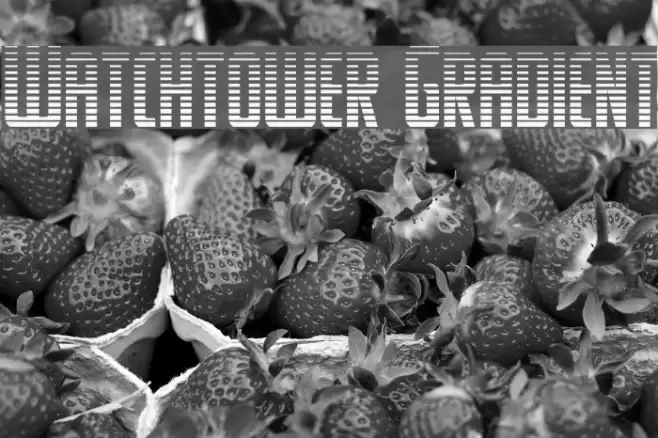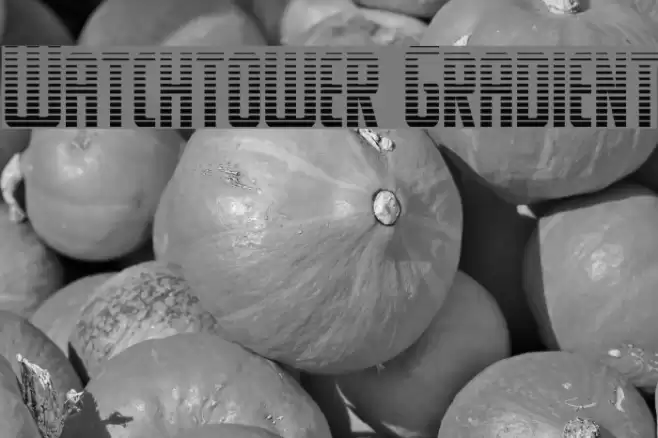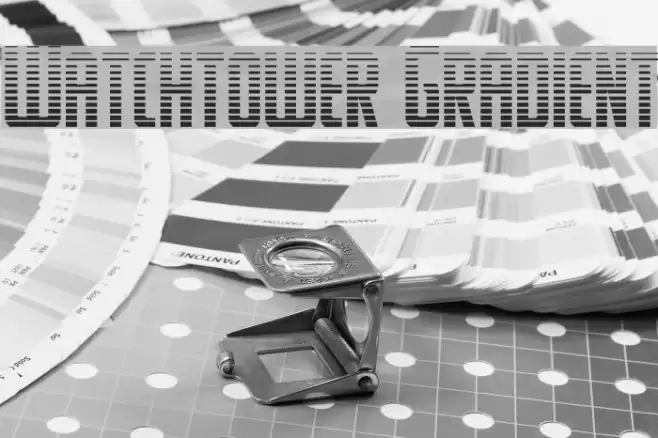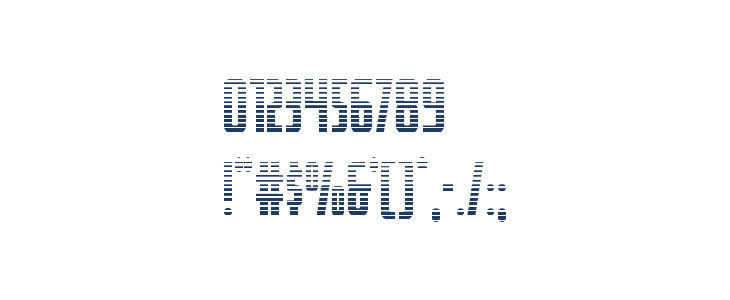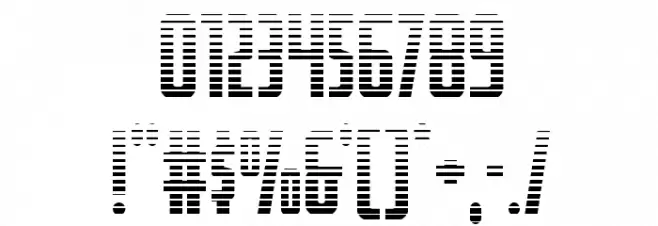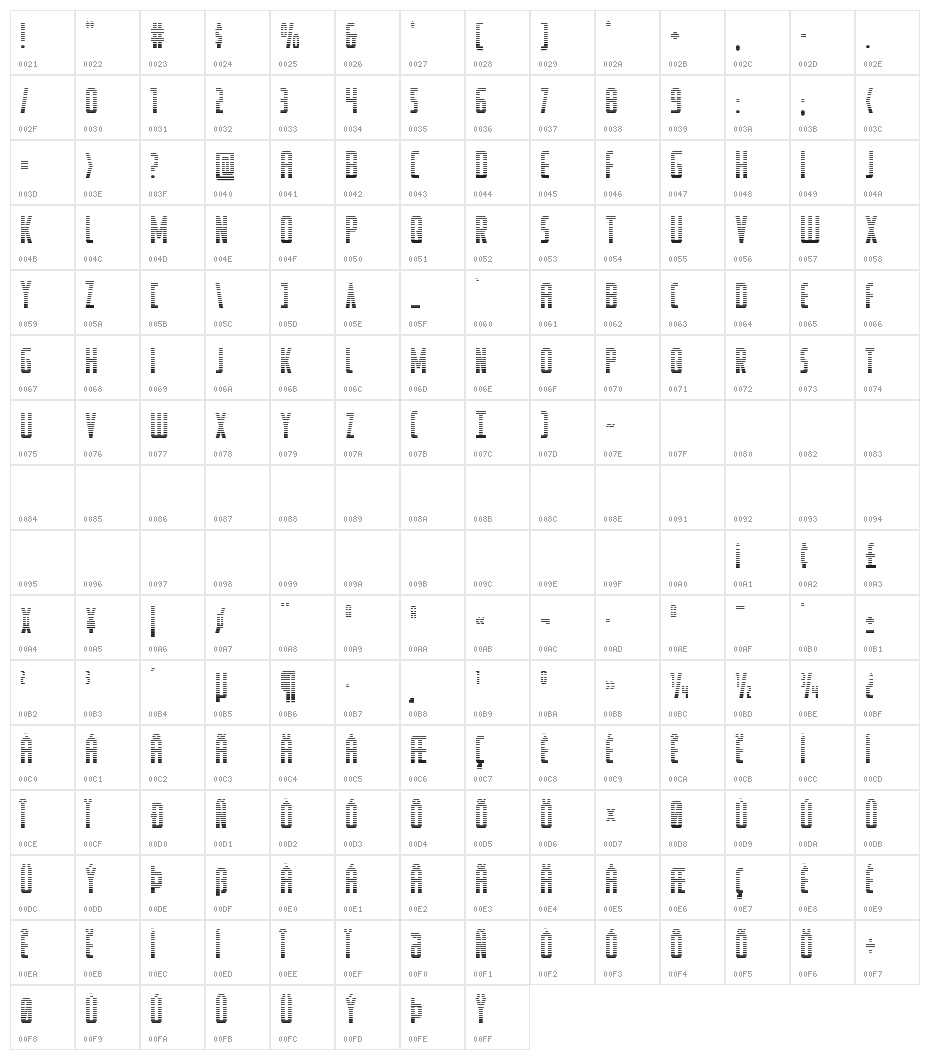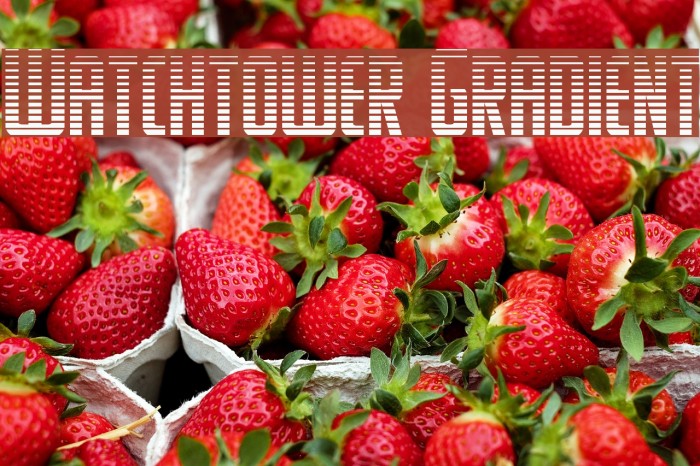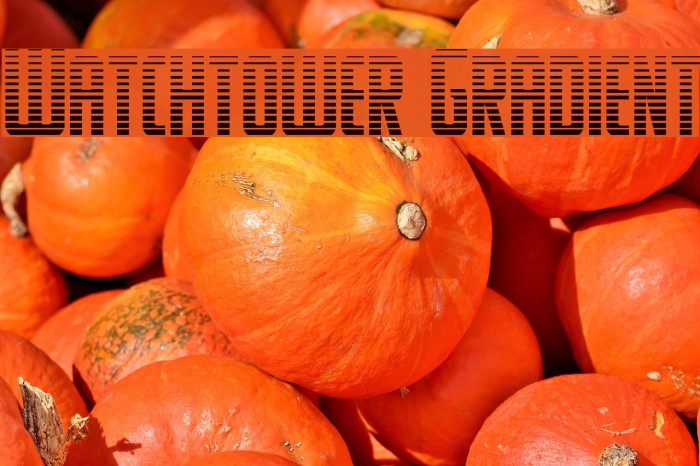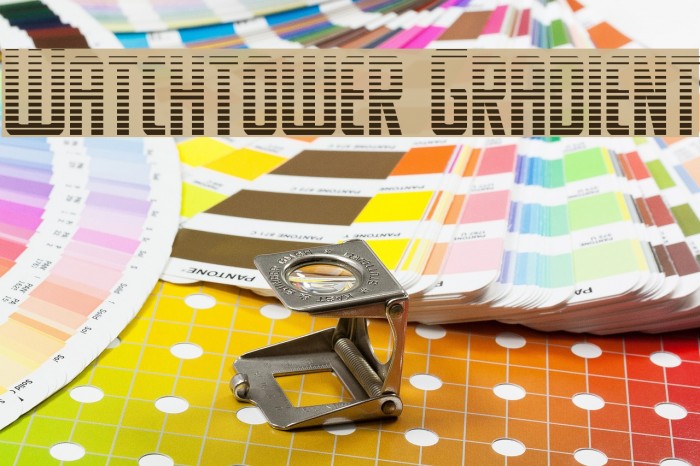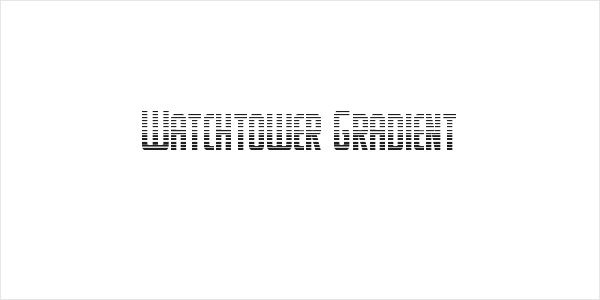
Watchtower Gradient Font
Watchtower Gradient Description
This font features a unique gradient effect within each character, creating a striking visual impact. The design is bold and modern, with each letter composed of horizontal lines that vary in thickness, giving a sense of movement and depth. The uppercase and lowercase letters maintain a consistent style, with a geometric and structured appearance. The numbers and special characters follow the same pattern, ensuring uniformity across all glyphs. This font's distinctive style makes it ideal for projects that require a futuristic or tech-inspired aesthetic.
A bold, modern font with a gradient effect and geometric structure from Uncategorized fonts.
- Proposed Projects: Ideal for tech branding, futuristic posters, digital media, and video game titles.